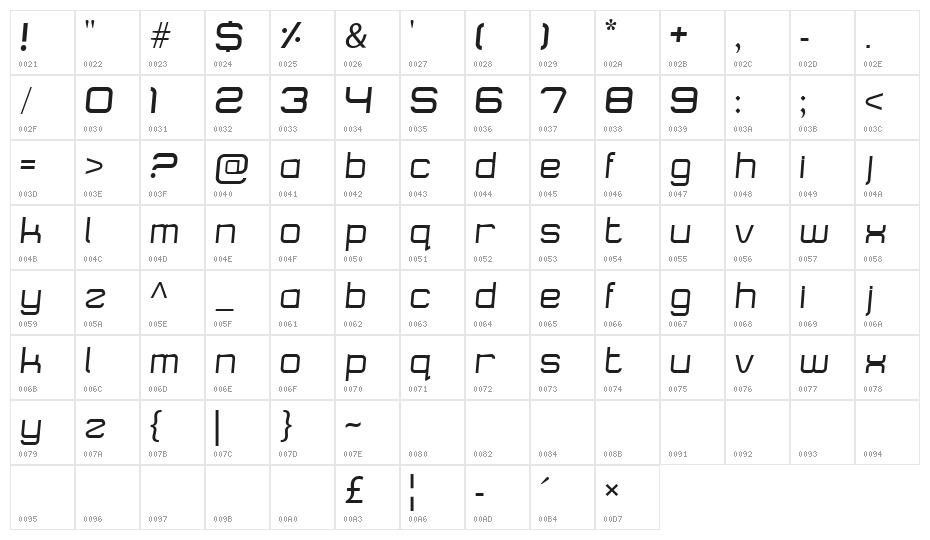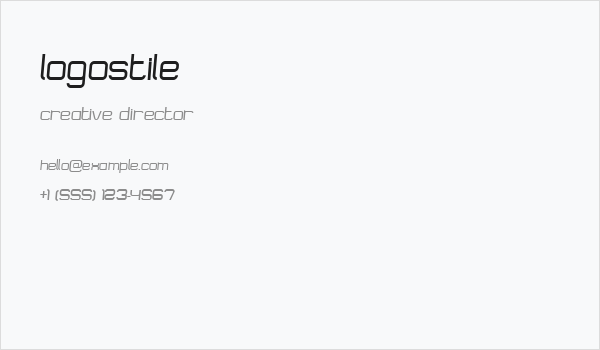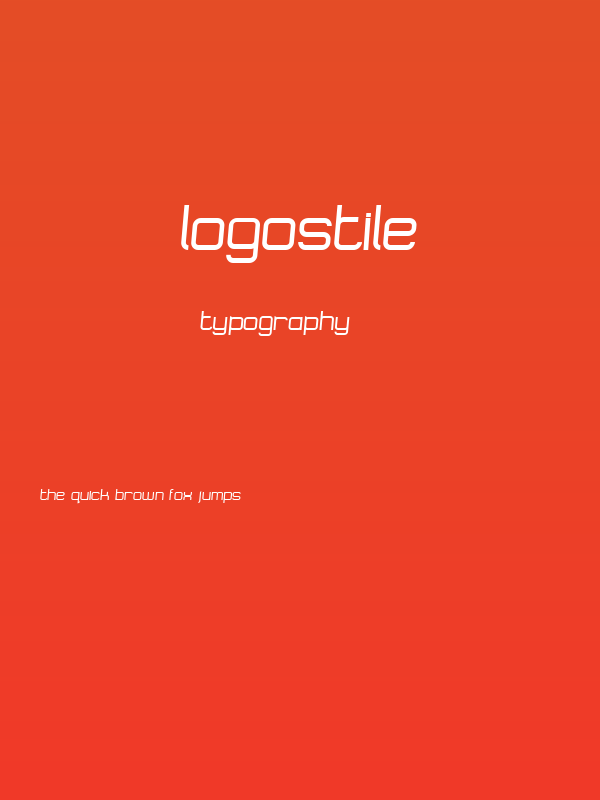
Logostile Font
Logostile Description
This font features a sleek, modern design with a slightly futuristic feel. The characters are rounded with a consistent stroke width, giving it a clean and streamlined appearance. The lowercase letters have a unique style, with some characters like 'a' and 'g' having distinctive shapes. The uppercase letters maintain a uniform height, contributing to the font's balanced look. Numbers are clear and easy to read, while special characters are well-integrated, matching the overall aesthetic. This font's design is both functional and stylish, making it suitable for a variety of applications.
| Use Case | Logos, Headlines, Digital interfaces |
| Proposed Projects | Ideal for tech branding, modern logos, user interfaces, and digital media. |